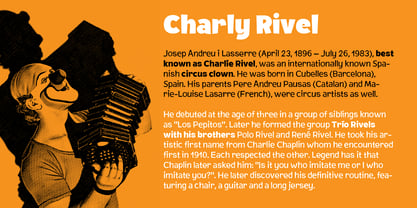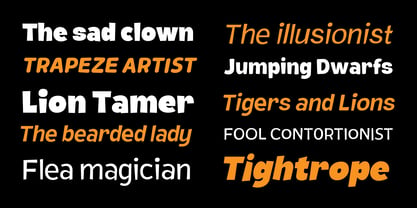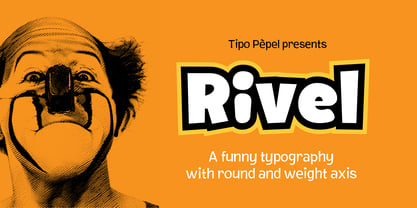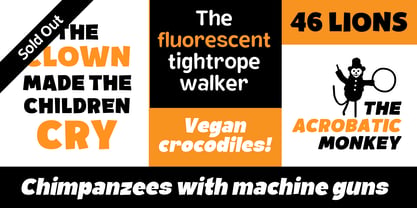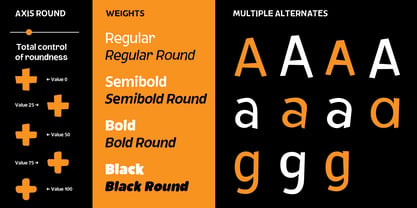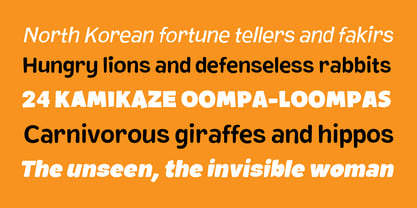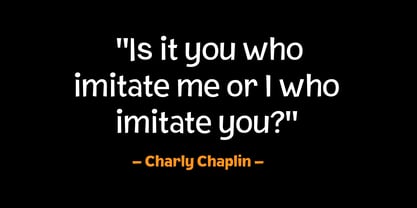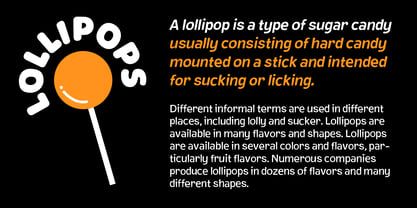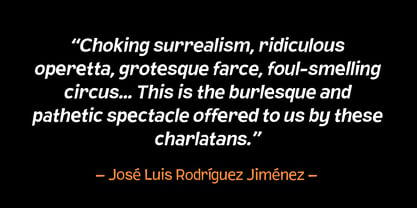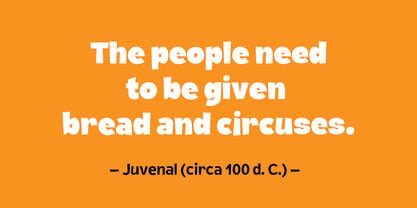
Rivel
by Tipo Pèpel
The Rivel Font Family was designed by Josep Patau Bellart and published by Tipo Pèpel. Rivel contains 18 styles and family package options. More about this family
Rivel is a lively, characterful display typeface inspired by the magic, irony and poetic tension of the circus. It balances humor and structure, softness and impact, creating a typographic voice that feels theatrical yet carefully controlled. Built around a distinctive round axis, Rivel offers total control over curvature and softness. Designers can modulate the personality of the letterforms — from crisp and assertive to fully rounded and playful — simply by adjusting the axis. This duality gives the typeface remarkable expressive range while maintaining visual coherence. The family includes multiple weights — Regular, Semibold, Bold and Black, each with corresponding Round versions — allowing for bold contrasts and layered typographic compositions. From subtle emphasis to powerful headlines, Rivel performs confidently at display sizes. A defining feature of Rivel is its extensive system of alternates. Every letter includes variant forms, and they operate through the contextual alternates OpenType feature. This means the typeface dynamically adapts as you type, generating natural variation, rhythm and movement within words and lines. The result is a living texture — expressive, fluid and never mechanically repetitive. Rivel thrives in posters, branding, editorial headlines, packaging and any project that embraces personality and visual storytelling. It evokes spectacle without chaos, playfulness without losing typographic discipline. Expressive, warm and unapologetically charismatic, Rivel is not just a typeface — it is a performance.
Designers: Josep Patau Bellart
Foundry: Tipo Pèpel
Rivel